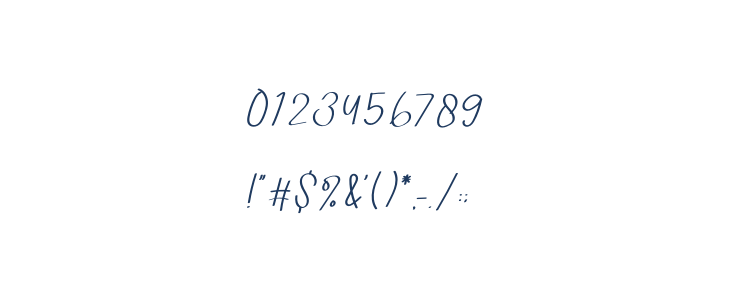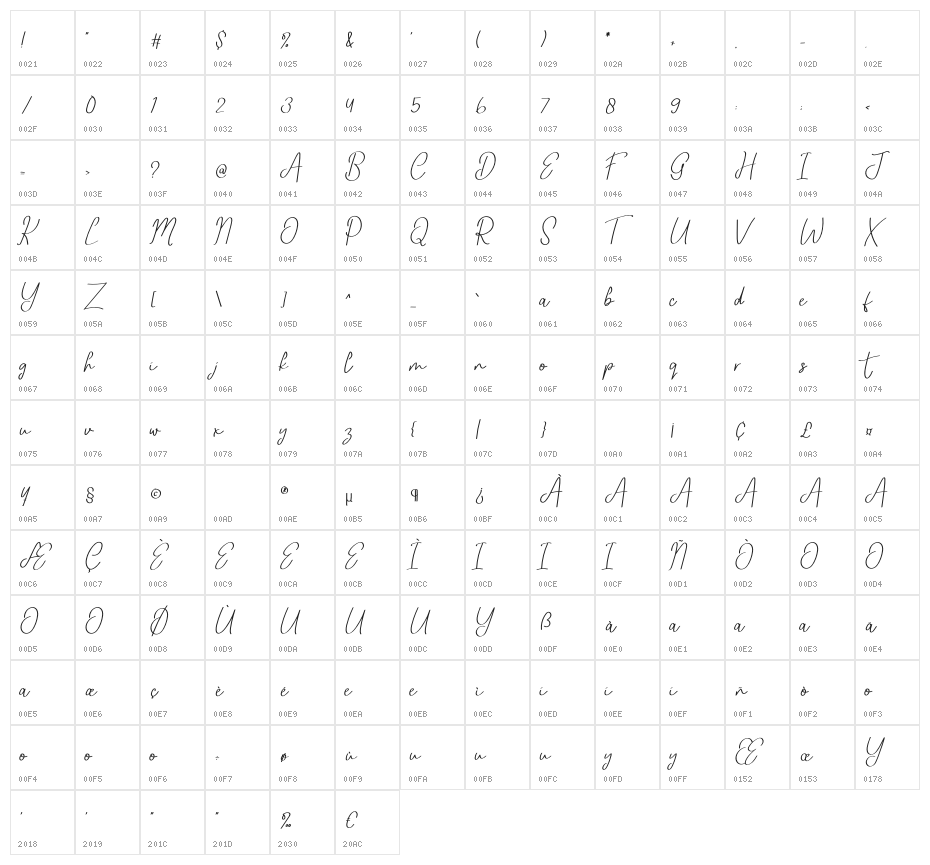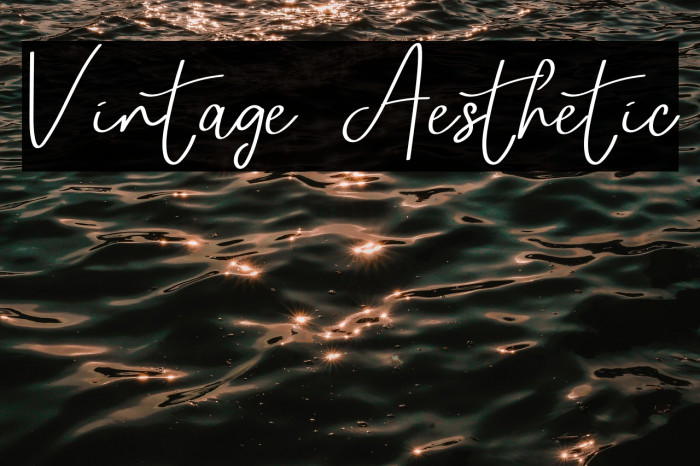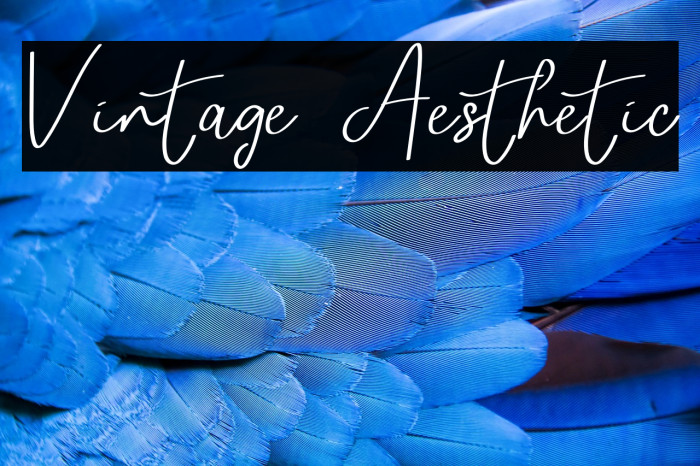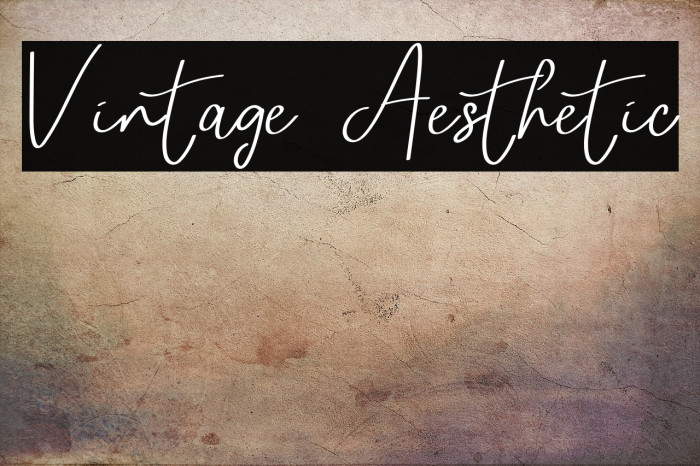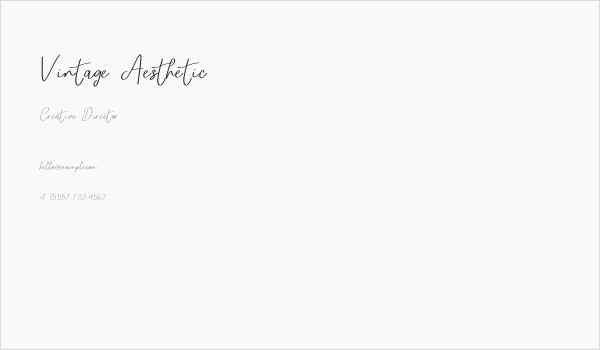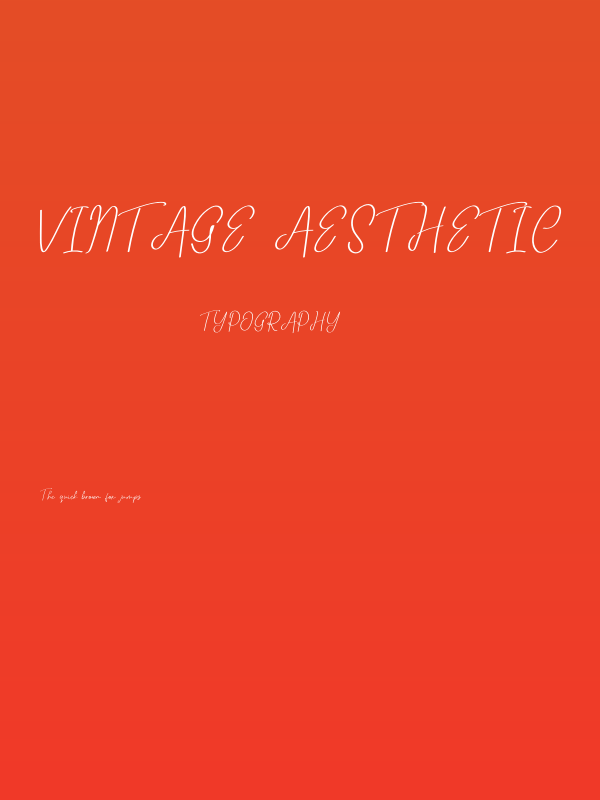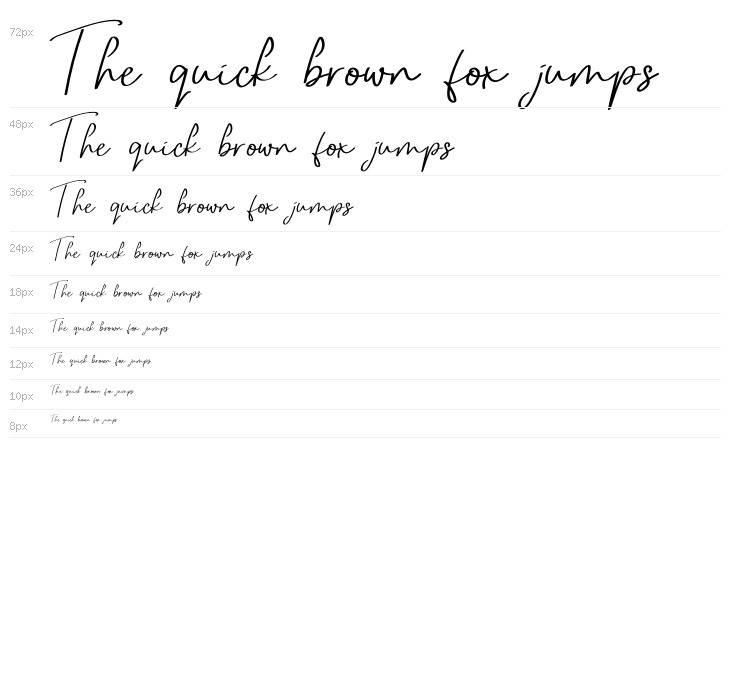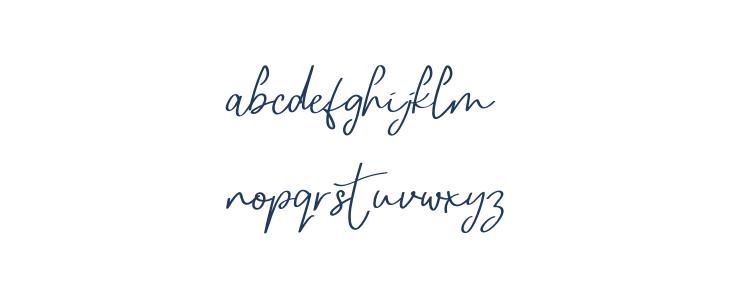
Vintage Aesthetic Font
Vintage Aesthetic Description
This font exudes a vintage aesthetic with its elegant, flowing script style. The uppercase letters are tall and slightly slanted, giving a sense of sophistication and grace. The lowercase letters maintain a consistent flow, with smooth curves and delicate loops that enhance its handwritten appeal. The numerals are clear and harmonious with the overall style, while the special characters are thoughtfully designed to match the font's elegant theme. This font is perfect for projects that require a touch of classic elegance and charm.